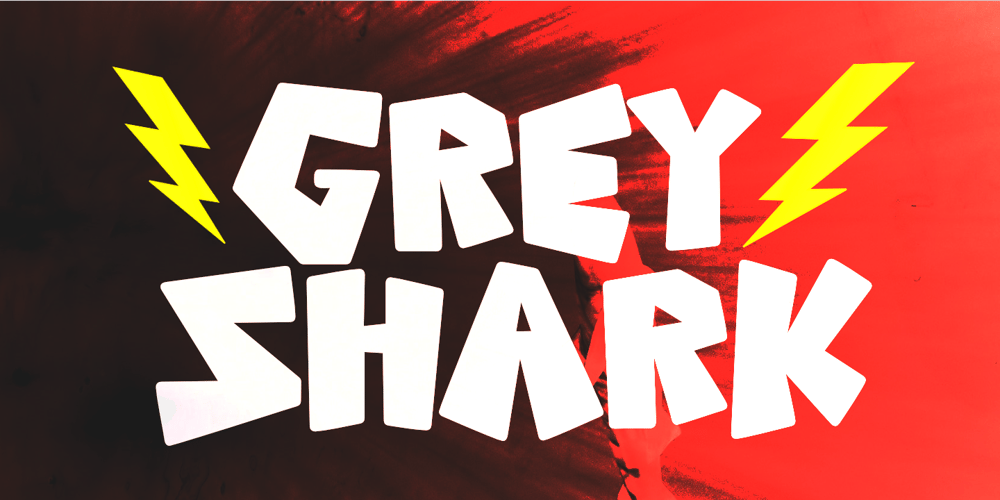
Grey Shark Font Family was designed by Nurul Hidayani and published by Olivetype. Grey Shark contains 1 styles and family package options. Grey Shark is a whimsical, cartoon-inspired font that brings fun and playfulness to your designs. Each letter has its own unique personality, adding charm and visual interest to your designs. The font’s bold strokes and exaggerated curves give it a distinctive, cartoonish look. Use it for various projects, including comic books, children’s books, game design, branding, and more. Dive into Fun with this Playful Cartoon Comic Font.Grey Shark features :- Standard Latin- Numbers, symbols, and punctuations- Multilingual Support.- Fully accessible without additional design software- Simple Installations- Works on PC & MacThank You